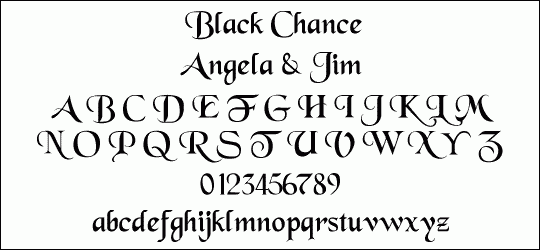
Black Chance Font is a gothic font family which attains along with stylish and cursive text forms, designed by Doug Miles. You can use this font for personal purpose.